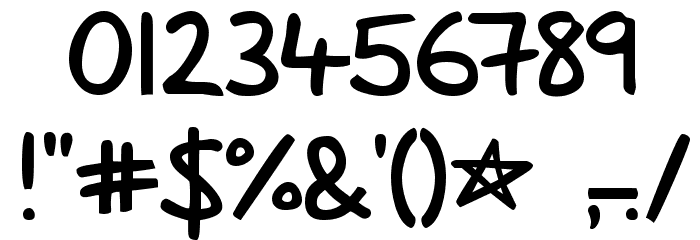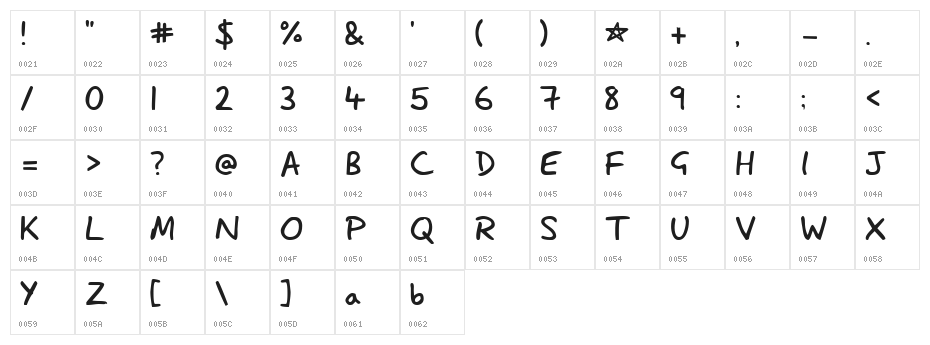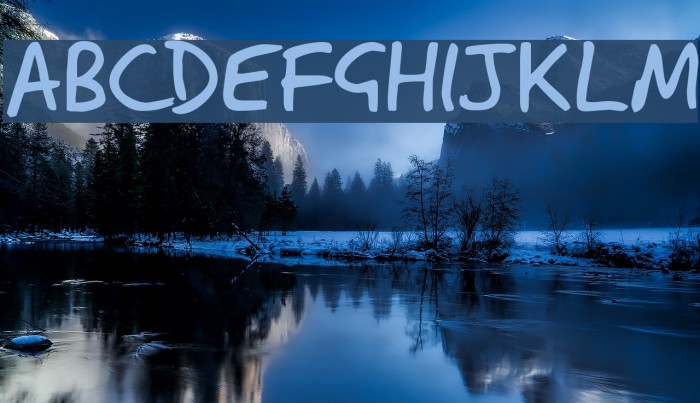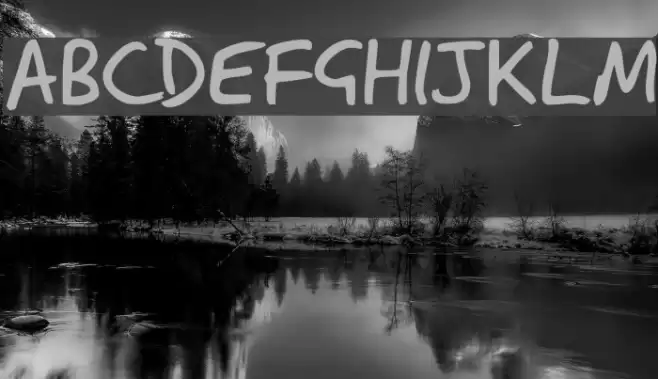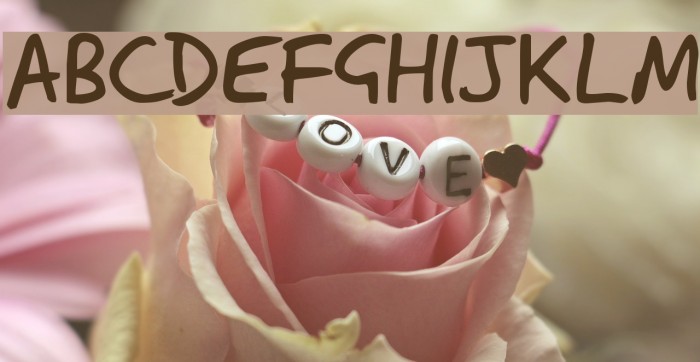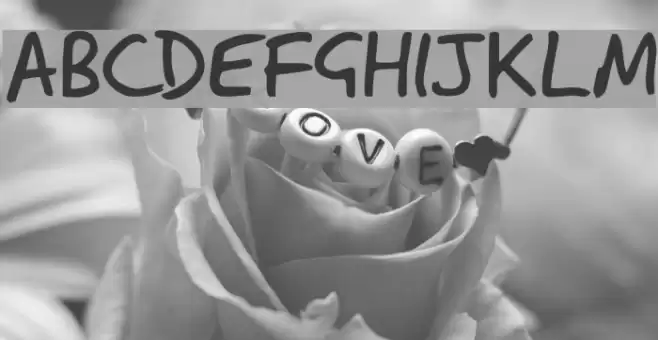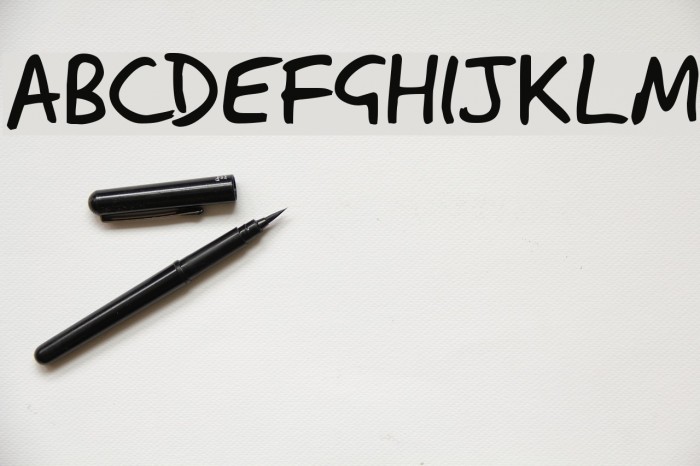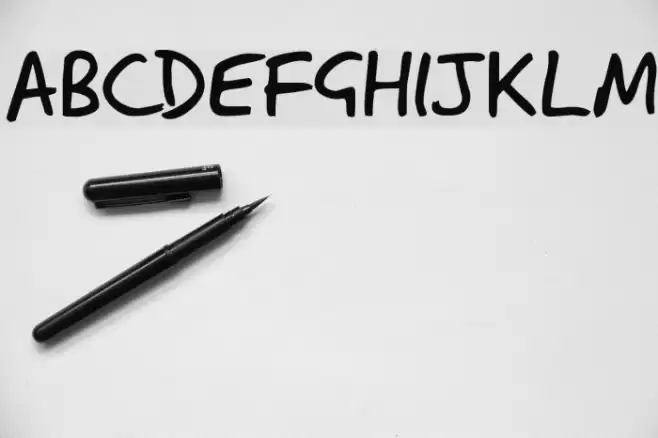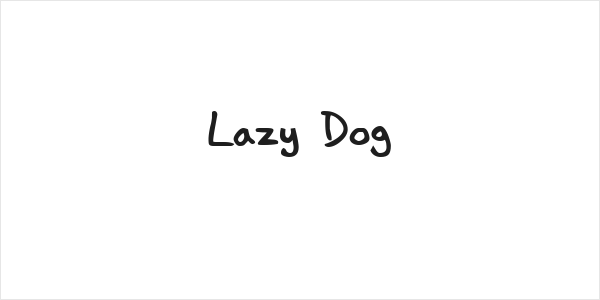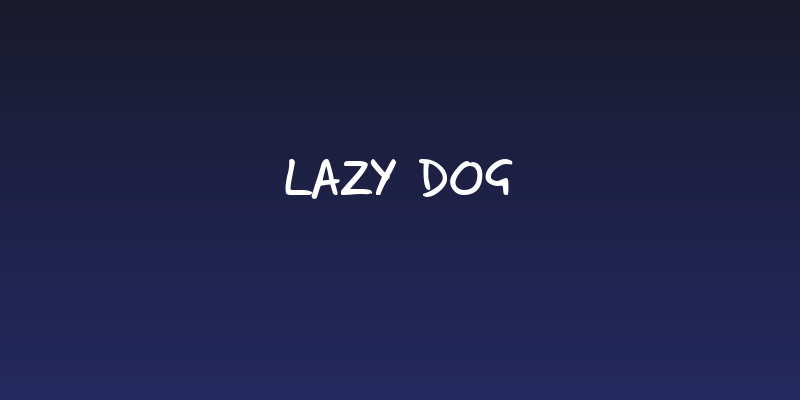
Lazy Dog Font
Lazy Dog Description
This playful and informal font features a handwritten style with a casual, friendly appearance. The letters are slightly irregular, adding a personal touch that mimics natural handwriting. The strokes are bold and rounded, creating a sense of warmth and approachability. The uppercase and lowercase letters maintain a consistent style, with a slight slant that enhances the handwritten feel. The numbers and special characters are equally expressive, maintaining the font's overall cohesive look. This font is ideal for projects that require a personal, human touch, such as greeting cards, invitations, or children's books.
| Use Case | Headlines, Informal text, Personal projects |
| Proposed Projects | Greeting cards, invitations, children's books, casual branding, and social media graphics. |